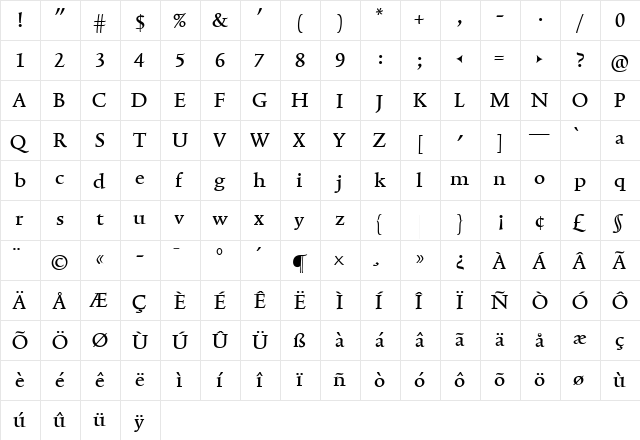
TriniteNo1 Medium
Design Context for TriniteNo1 Typeface
TriniteNo1 is a composed and adaptable typeface that performs quietly and consistently across a wide range of design contexts.
Pro Tip: Use TriniteNo1 in both headline and body roles to test its range before committing to a single application.